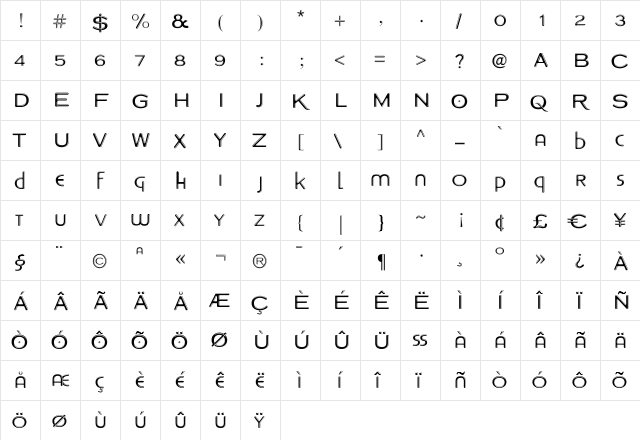
Copperplate Modern Light Chrome Regular
Design Context for Copperplate Modern Light Chrome Typeface
Copperplate Modern Light Chrome takes a measured approach to typography — its balanced proportions and neutral character make it a reliable workhorse for both digital and print work. The delicate stroke weight brings airiness and refinement to layouts.